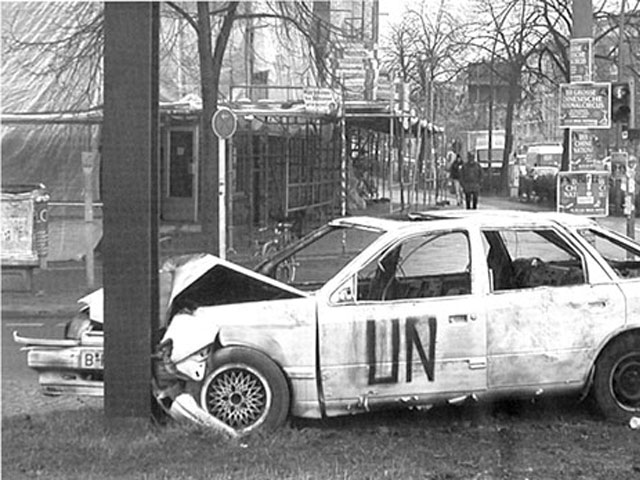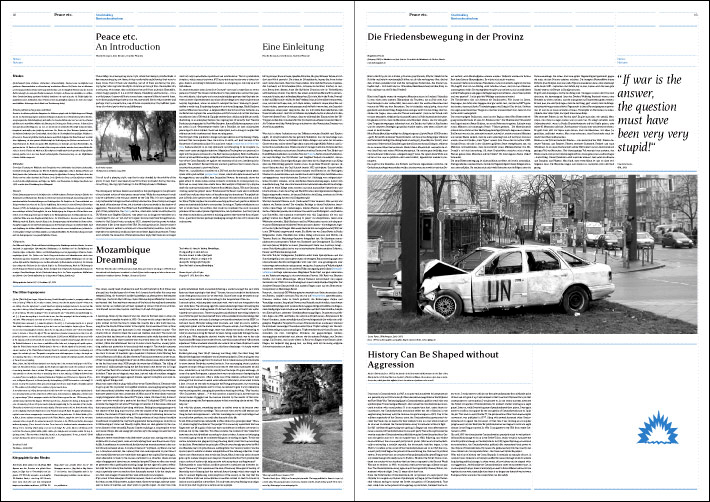
![]() Car lettering... hmm wait a second. Some time ago there was an accident here in Berlin city-center, and some freaks (or artists) painted the car the same night completely white. The next night they came back and added a black big lettering saying UN to it. It is already some time ago, but I remember there was some political hot items with the UN these days. The car was situated at a big busy corner in Berlin and really everybody saw this car, and the newspapers wrote articles about this. greetings from Berlin, der Peter, Scrollan ![]()